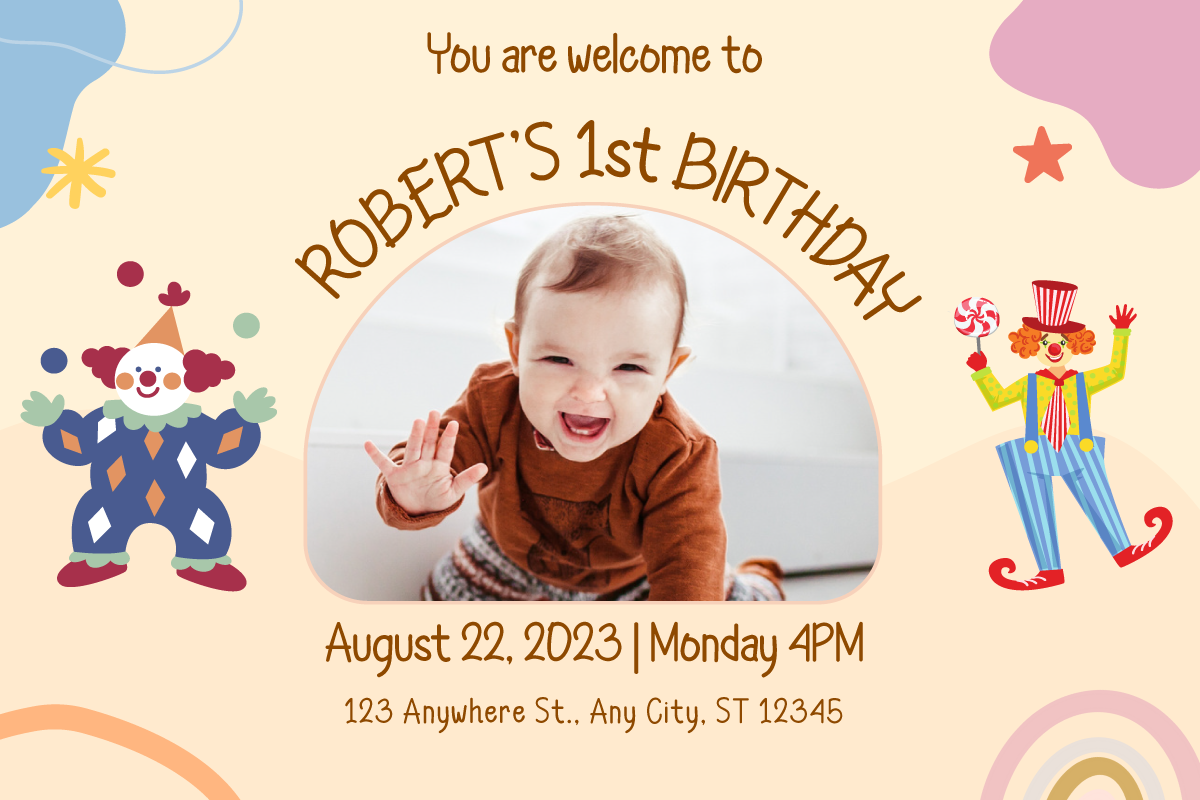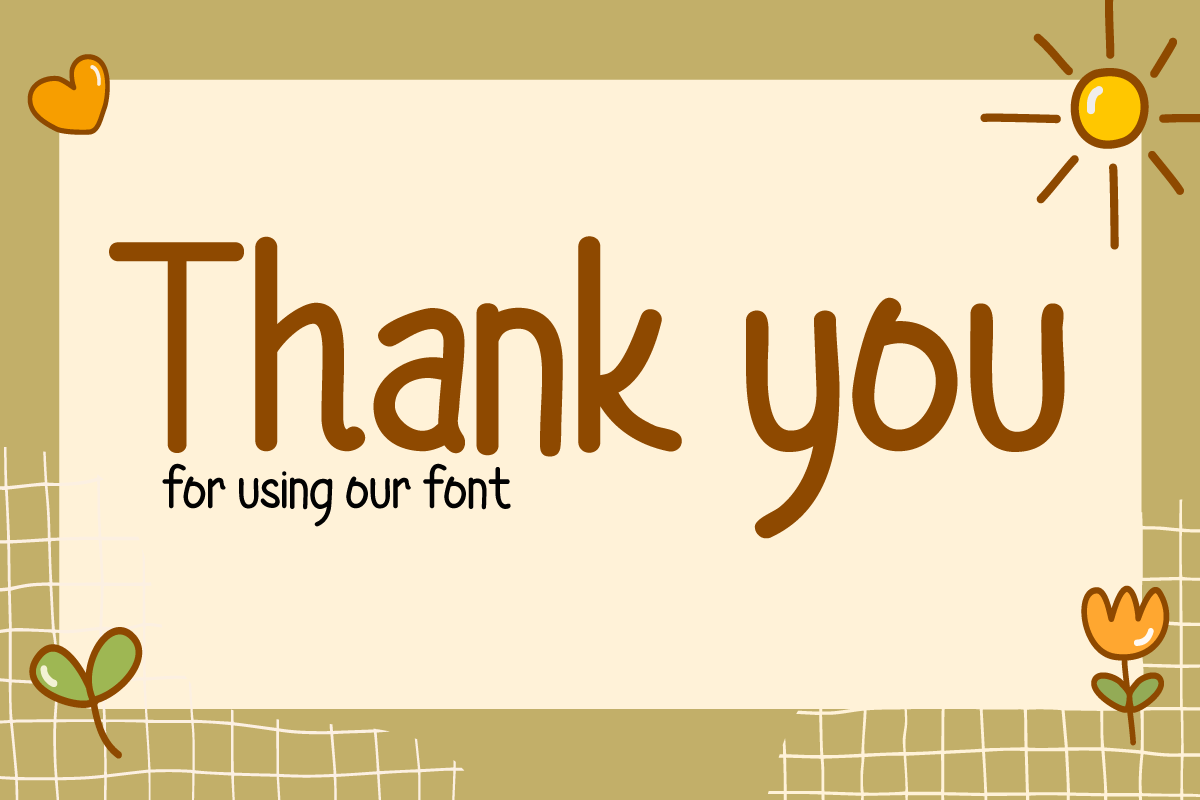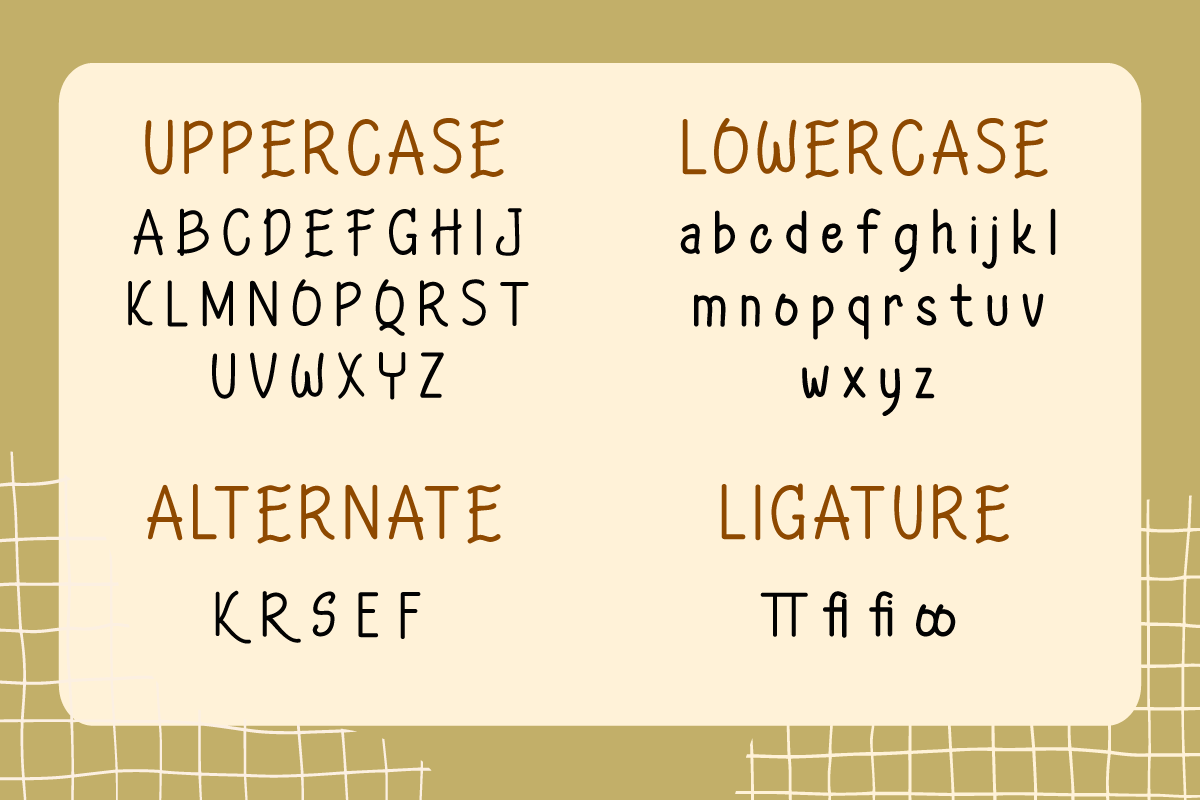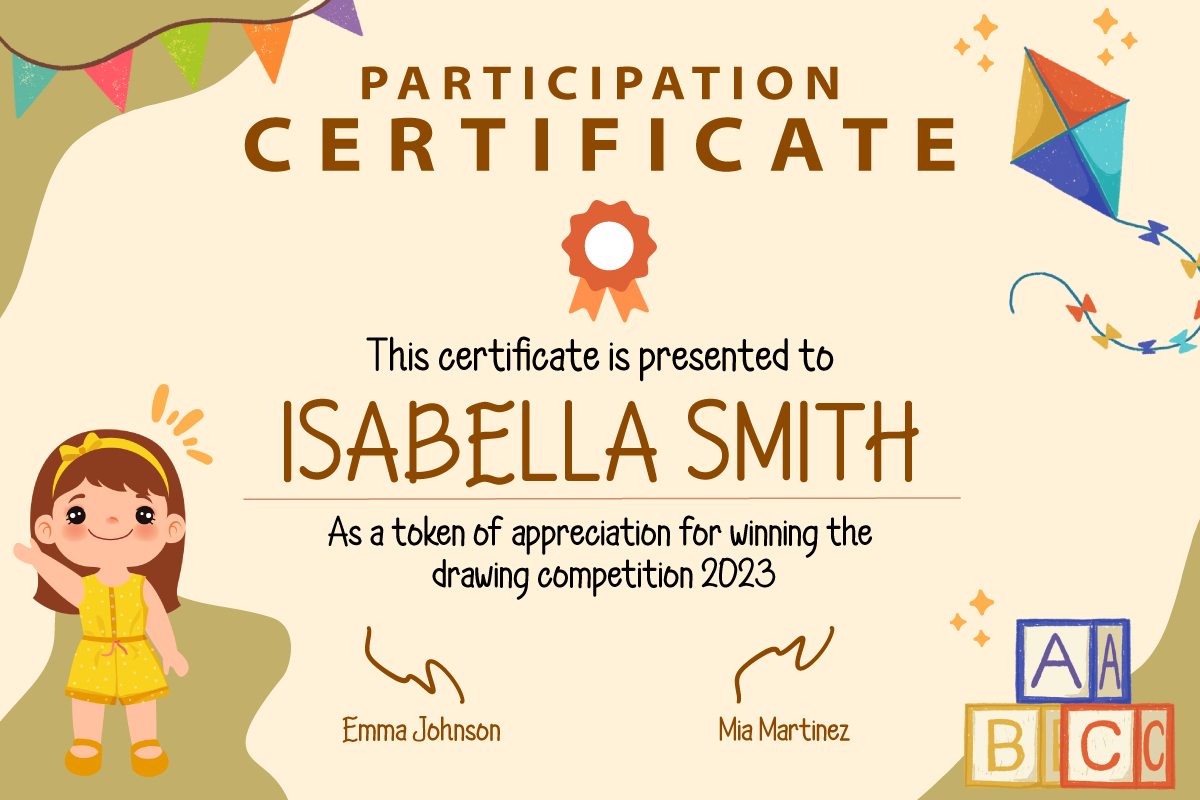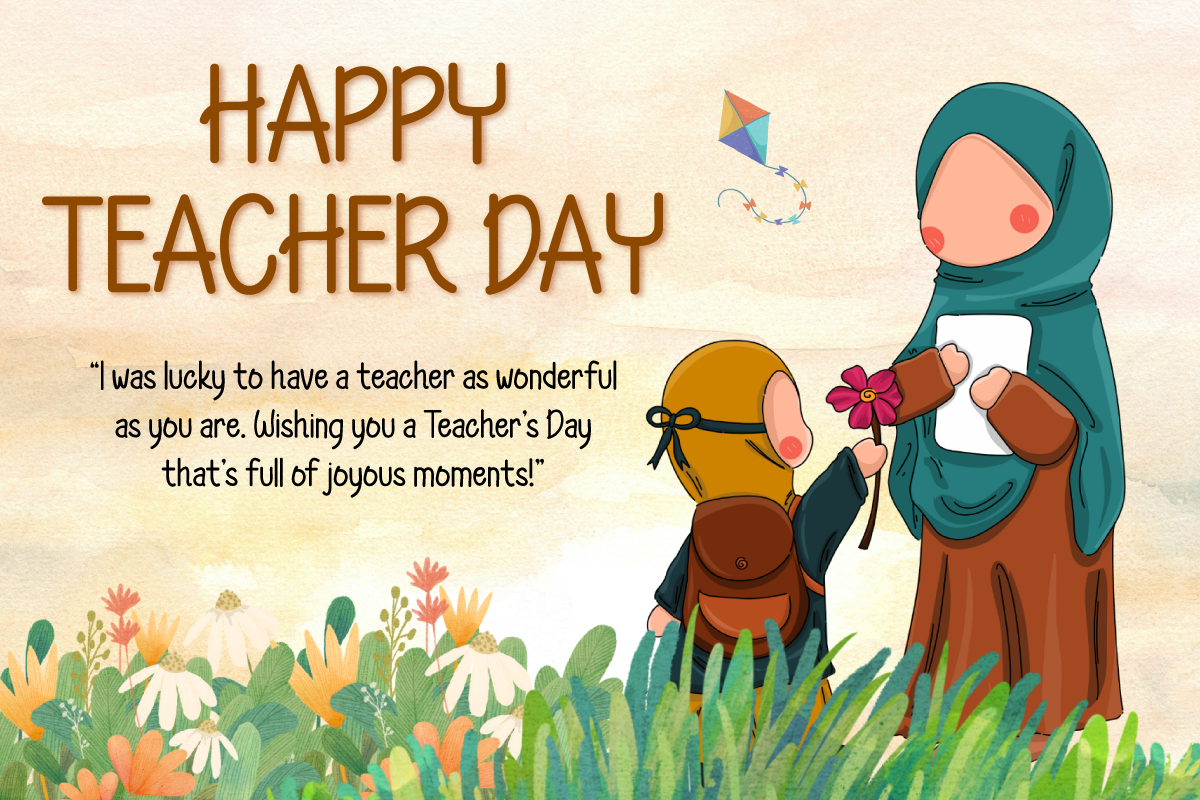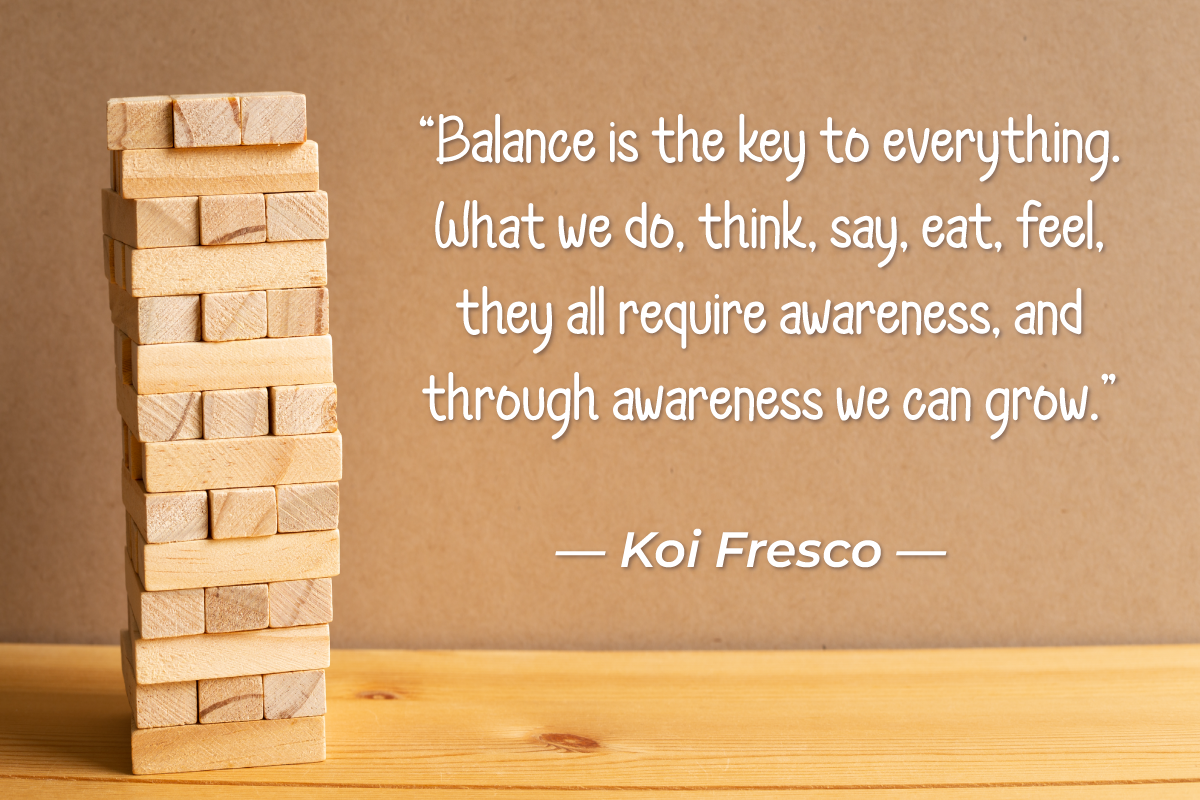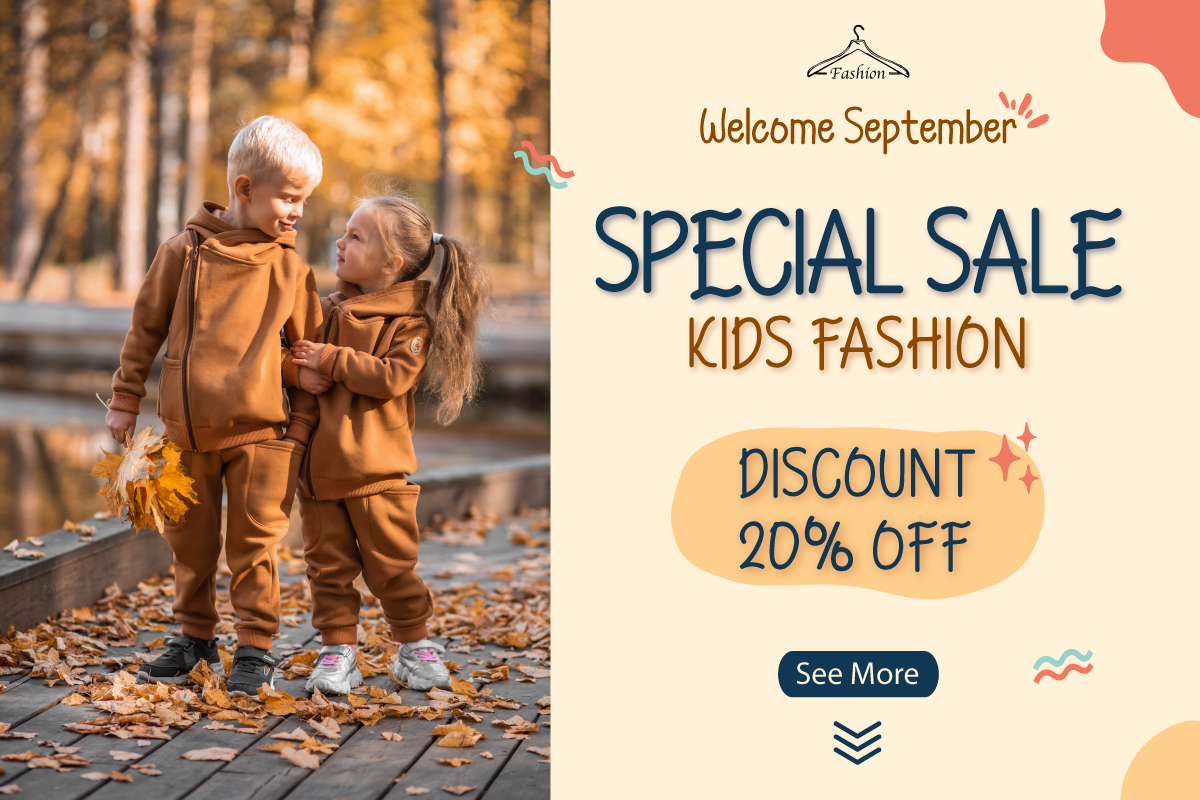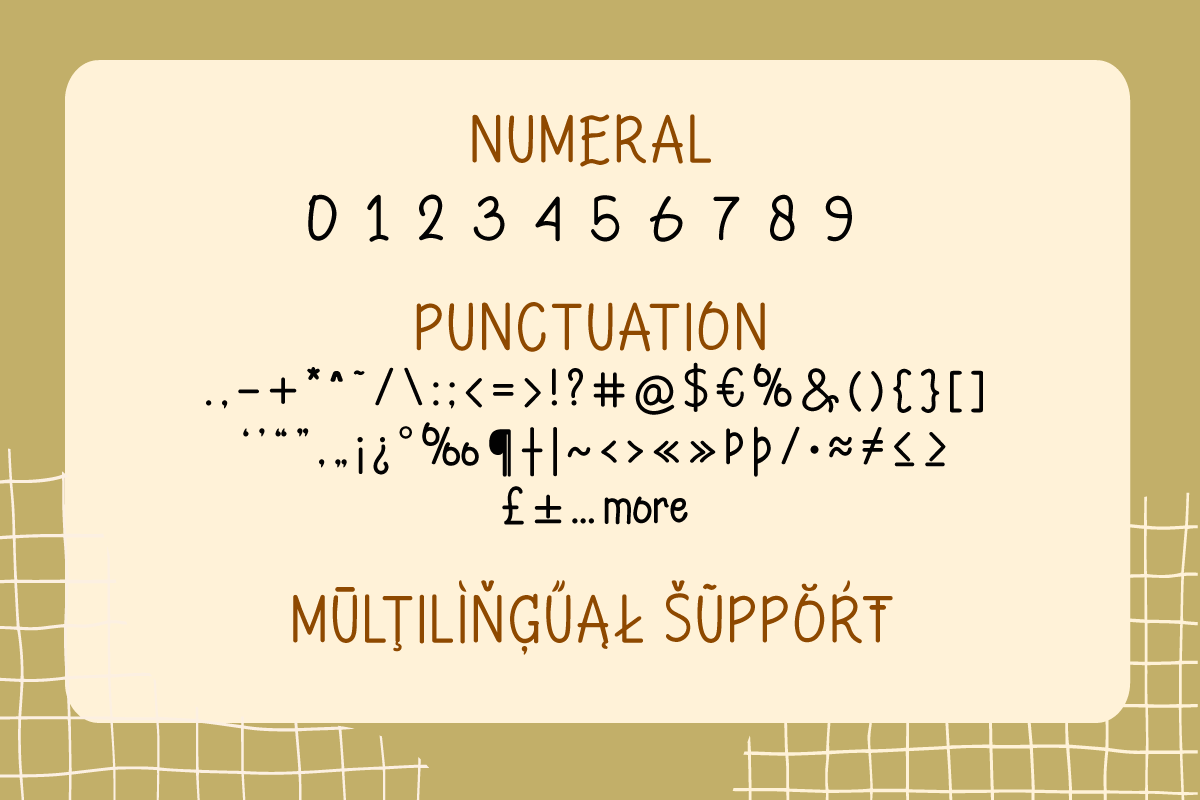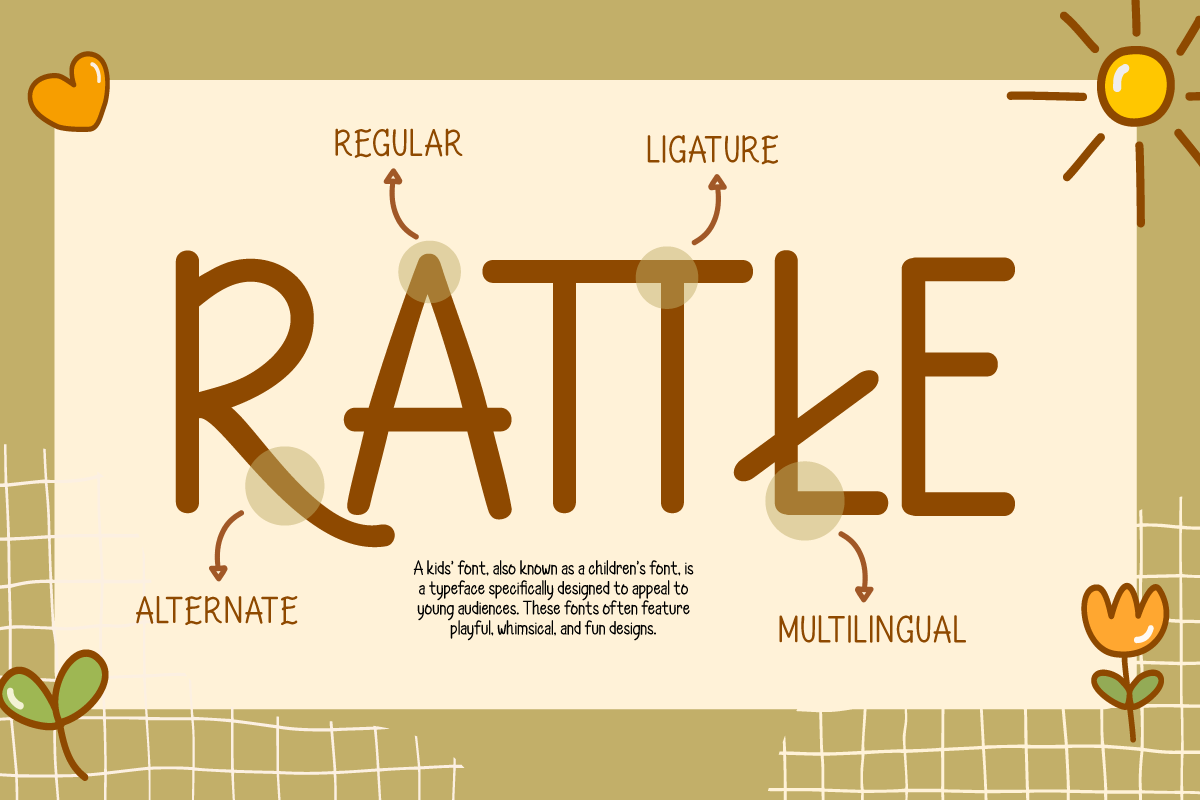
RABOKA | Playful Display
Introducing "RABOKA Font" - Where Playful Typography Takes the Lead.
RABOKA Font is a celebration of playful design. With its whimsical theme, this font infuses a delightful and lighthearted touch into your creative projects. Whether you're crafting invitations, posters, or branding materials, RABOKA Font effortlessly grabs attention and brings a sense of fun to your designs.
Created with meticulous craftsmanship, RABOKA Font radiates the joy and creativity of playful typography, instantly captivating your audience.
Its versatility knows no bounds, making it a perfect fit for a wide range of applications, from children's book illustrations to party invitations.
RABOKA Font enhances both readability and style with its quirky, eye-catching characters, providing a unique and engaging look to your text. Plus, it supports various languages, ensuring it resonates with a diverse audience.
Elevate your creative projects with the exuberance of RABOKA Font. Explore this exceptional typeface today and let your designs dance with the spirit of playful typography.
- Alternate, Ligature